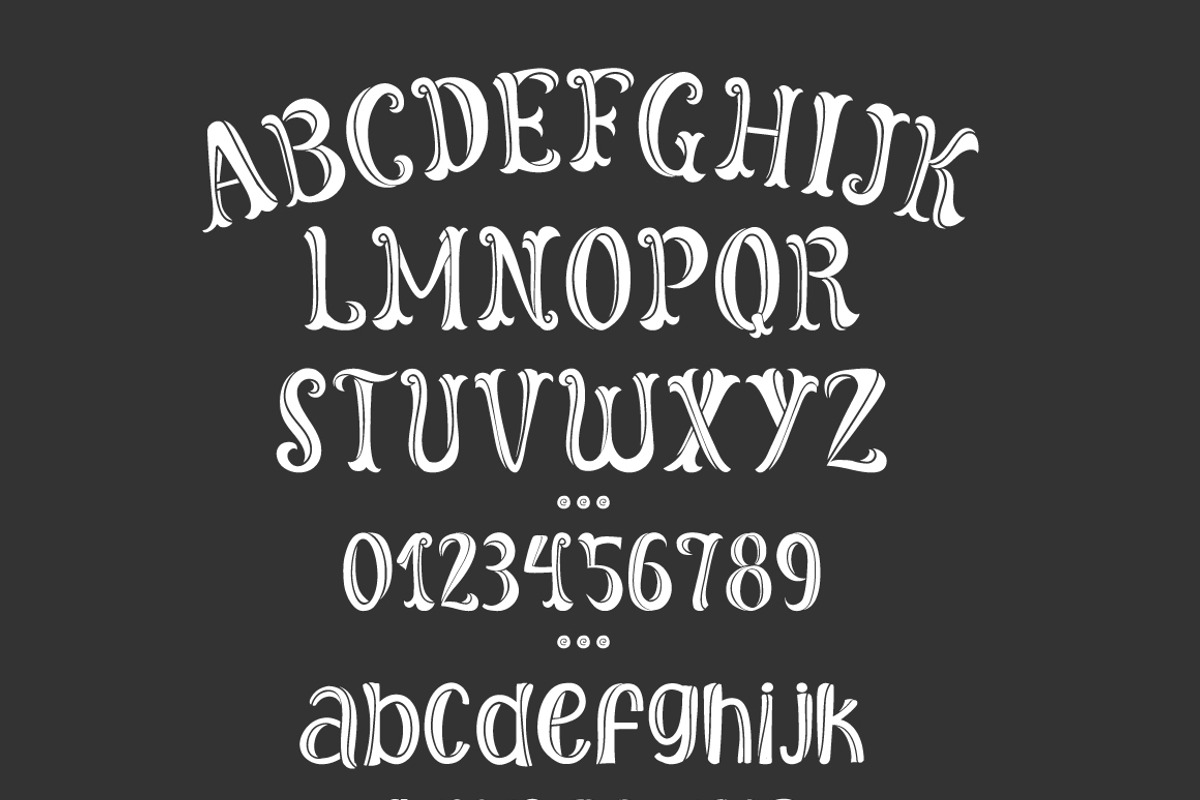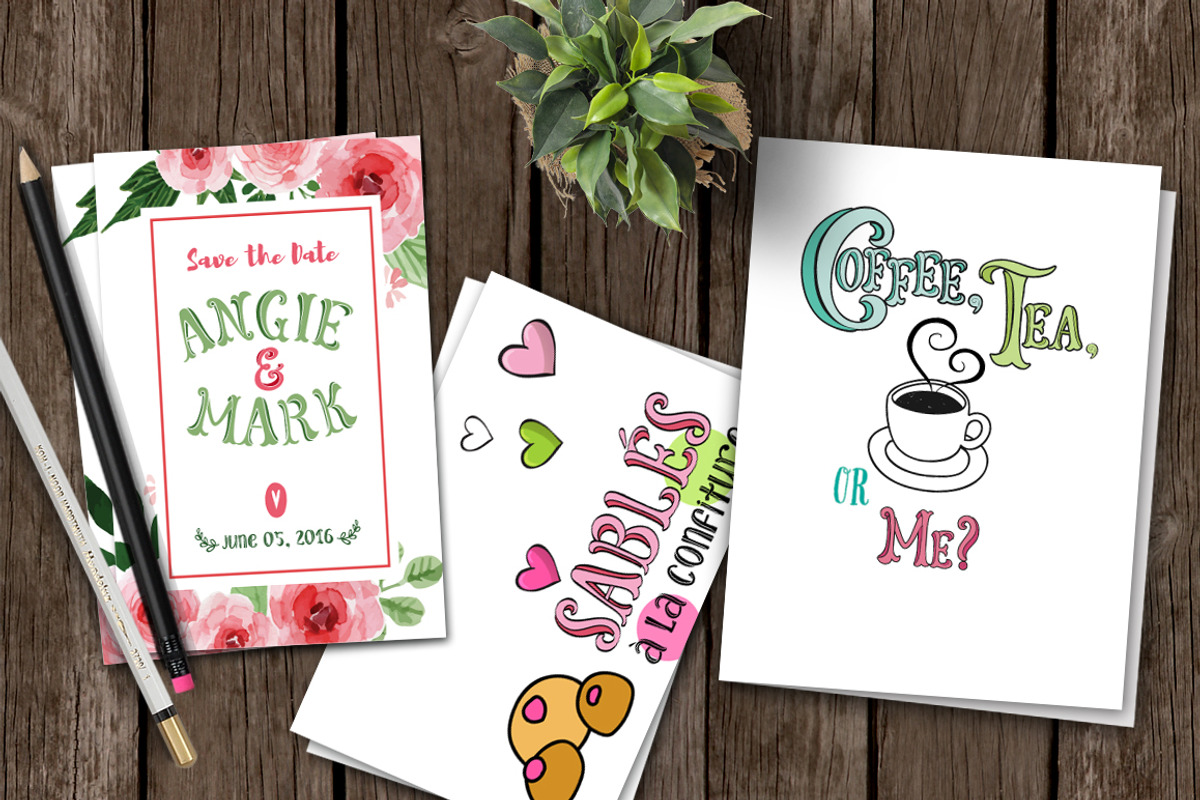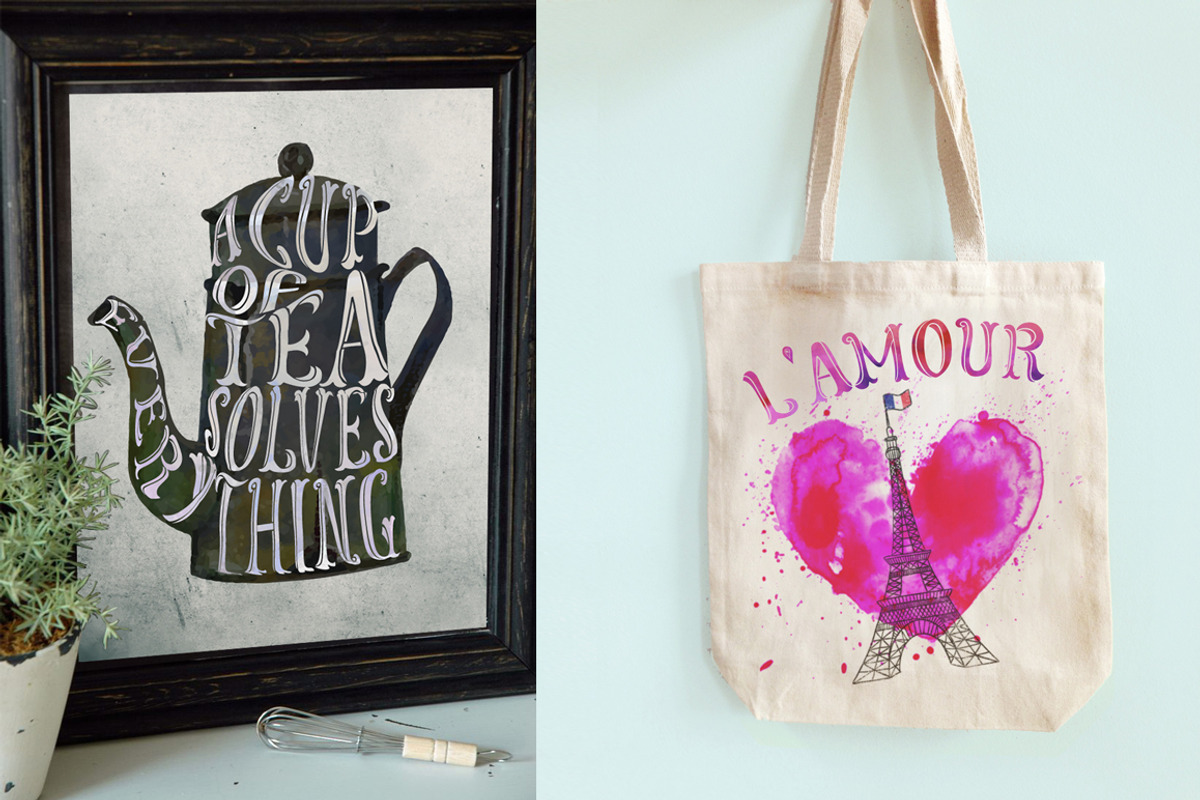
Cafe de Paris, Typeface with Bonus
Cafe de Paris, Typeface with Bonus by a Blond Moment is a font selected for branding, posters, packaging, typography.
- Cafe de Paris font includes interpunction, multilingual characters and eight decorative glyphs which require access to a glyphs panel.
- Cafe de Paris, typeface sweet as pie, is a cheerful, romantic font, that makes you want to say happy things - or learn French :)) Light and
Cafe de Paris, Typeface with Bonus by a Blond Moment fits naturally into Branding, posters, packaging, typography.